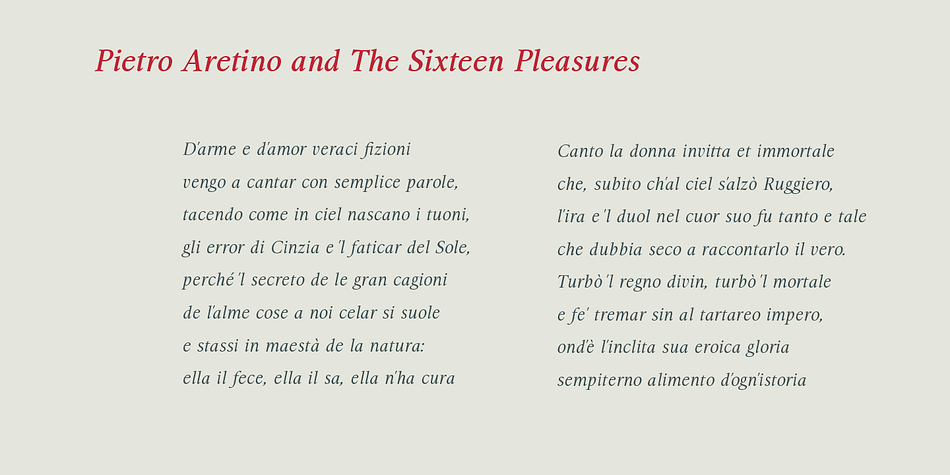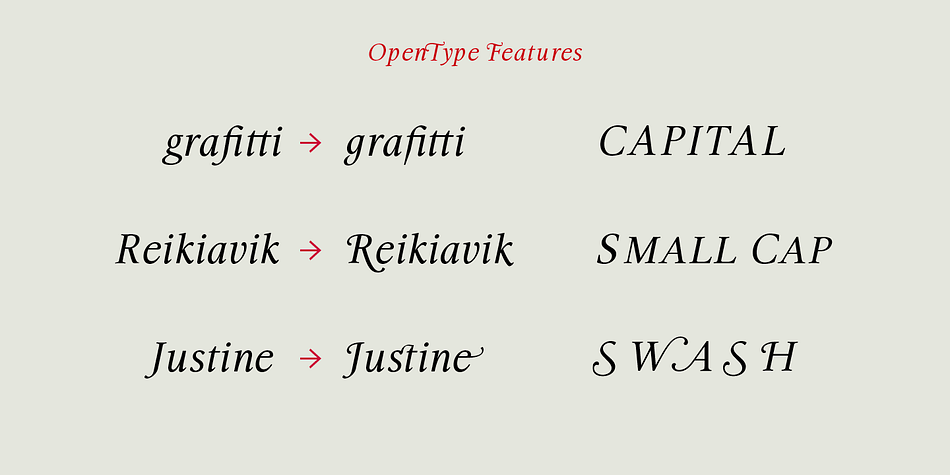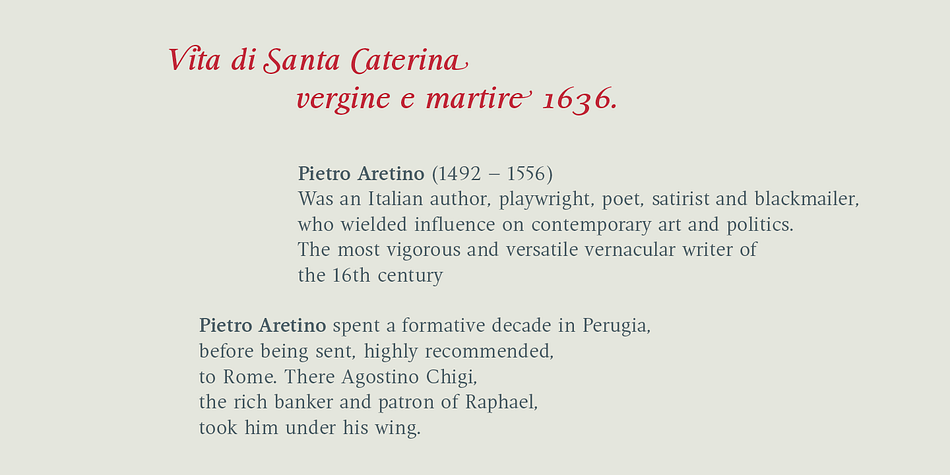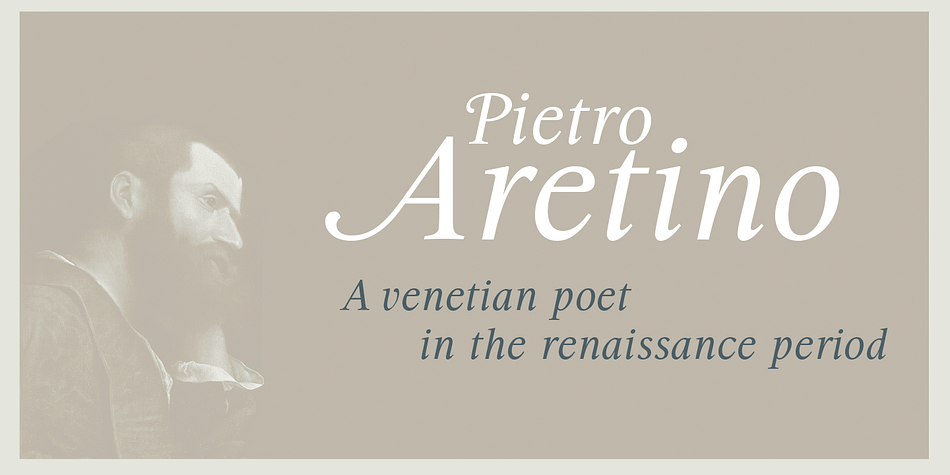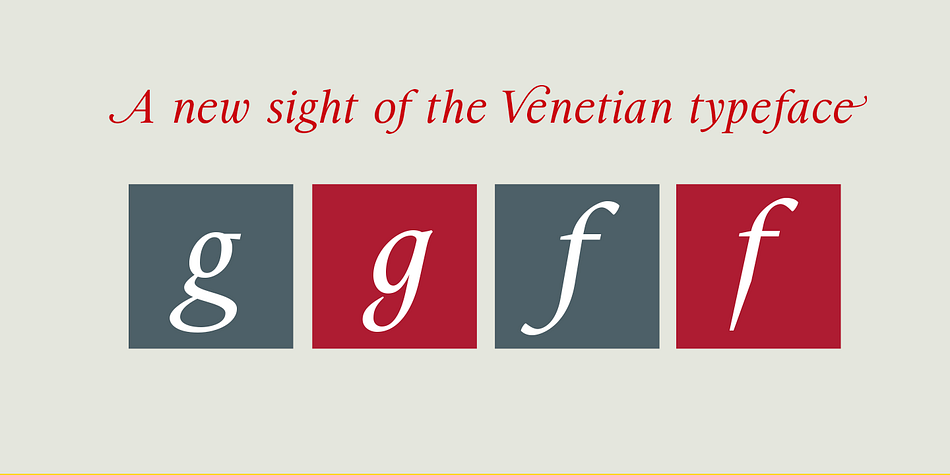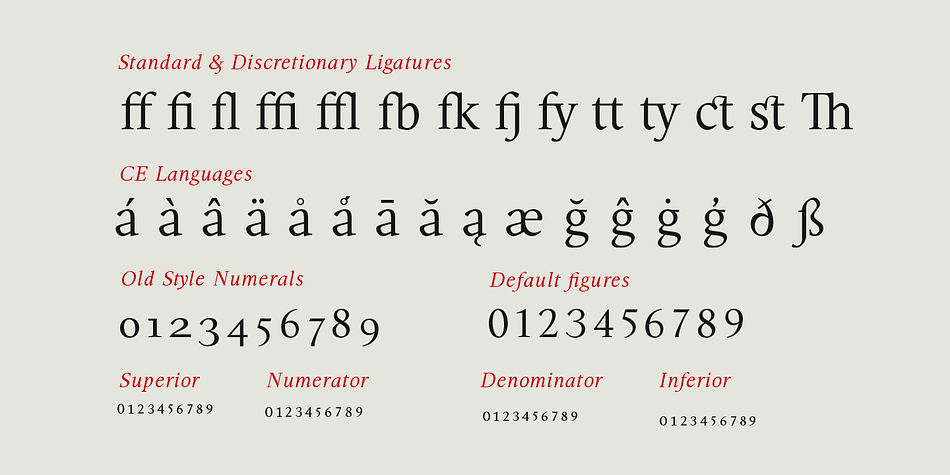
Designed by Olcar Alcaide, Aretino is a serif font family. This typeface has seven styles and was published by Eurotypo.
Pietro Aretino ( 1492 – 1556) Was an Italian author, playwright, poet, satirist and blackmailer, who wielded influence on contemporary art and politics. The most vigorous and versatile vernacular writer of the 16th century
He was a very versatile writer, famous for his Lascivious Sonnets – which caused great scandal at the time – but also for his satirical verses, addressed to all the powerful people in Italy, without forgetting the many plays that he wrote for the theatre.
Part of the charm of his letters is that through them you may know the whole of Venetian society from the top to the bottom.
The little-known church of San Luca in Venice (in St Mark’s district) has been a place of pilgrimage for centuries for people who are decidedly not devout: journalists, writers, free thinkers. In 1556 Pietro Aretino, a unique character of the Italian and Venetian Renaissance period was buried there.
Such strong of personality, has contributed to generate the powerful wind of change that emerged from the italian renaissance.
We have inspired on that talent searching for a new sight the famous Venetian typefaces. Probably looking for more contemporary style.
This typeface is slightly condensed, lighter and has more contrast between the thick and thin letter-strokes, it has concave bracketed serif. Their ascender and descenders strokes are very shorts.
Aretino family is completed by four weigh: Regular, SemiBold, Bold and ExtraBold, while Italics has three weighs.
These fonts came with a full OpenType features and CE languages.